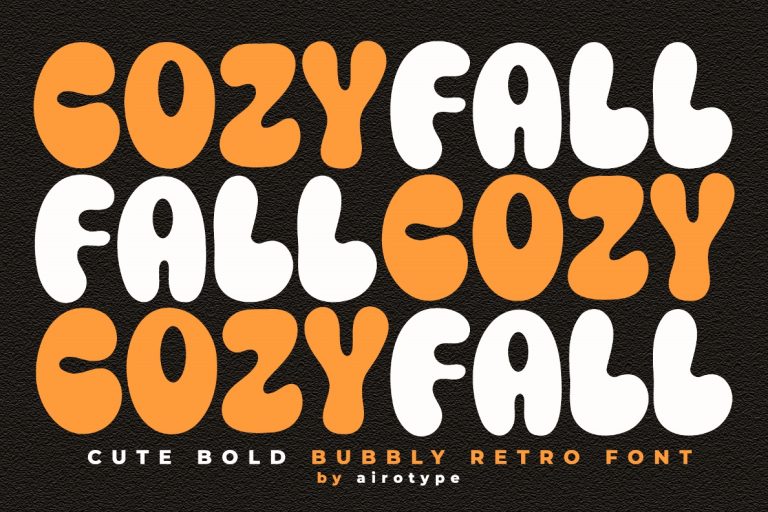
- Cozy Fall
Cozy Fall
Cozy Fall is cute and bubbly retro font. It has vintage, groovy, and playful vibes.
This font is lovable for any project with fun and vintage style, such as logo, crafting, t-shirt, social media, branding, sticker, sublimation, quotes, and many more.